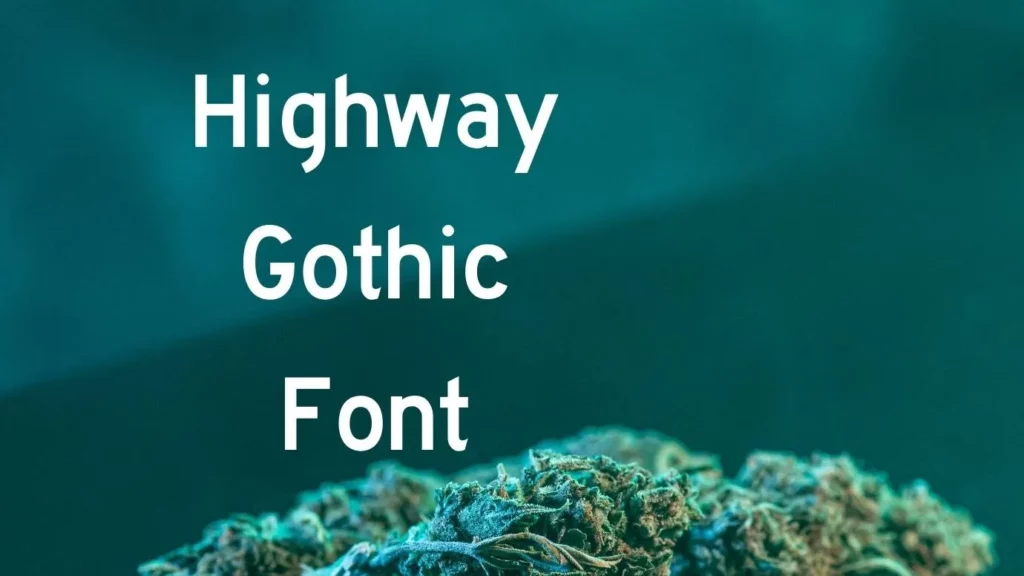
Introducing you a sans-serif premium Highway Gothic Font that comes with great characters and styles. Its fancy style is perfect for signposting projects. It has great popularity as in some countries this typeface is used in vehicle plates that make it familiar to everyone. Many designers used this bold font in their designs.
Highway Gothic typeface was designed by very famous designer Ted Forbes, he created many famous fonts as he was a famous editor and videographer. He made this masterpiece with amazing styles and weights. His style is famous all over the world due to its creativity.
Therefore, Highway Gothic texture has the old name FHWA font after some time new variations were made and its new version came to see and that was Highway Gothic typeface with new styles and texture. At the start, it came in just uppercase letters but later on it was introduced in small letters as well as punctuation and numbers.
This typeface has amazing glyphs and unique characters. It has a great pairing with Flash Font and gives a great combination. Its generators are available online you can make new styles of your choice without installing them into your window.
View of Highway Gothic Font
Here is a picture of this fancy bold Highway Gothic texture so you can take a look and decide where you want to use this typeface.
Highway Gothic typeface has great visualization that is perfect for display projects. It is perfect for a large screen you can use it on a big screen as compared to a small screen.
It has a great name on the motorcars license plates. Its texture is so good and visual that can be seen from afar. Its readability is so clear that everyone can read it easily. That is the reason it got popular in no time.
It can be used in the logo of brands’ book titles, banners, posters, signposting, and labeling. You can create any type of design and design your website. You can decorate your blogs and design T-Shirts.
What is the type of Highway Gothic texture?
Highway Gothic typeface is a sans-serif bold typeface that has many amazing characters and glyphs.
What is Highway Gothic font used for?
This typeface is a traffic font that can be used in many fun projects like signposting titles, brand book covers YouTube channels and graphic designs.
Who designed the Highway Gothic typeface?
It was designed by a famous videographer and editor Ted Forbes, that did great work in creating this font.